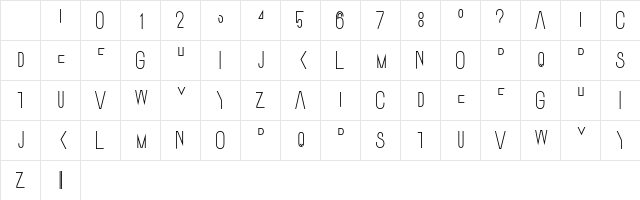
Complete Ostrich Sans Stack Regular glyph index. Displaying only characters natively supported by Ostrich Sans Stack Regular font.
Ostrich Sans Stack is a composed and adaptable typeface that performs quietly and consistently across a wide range of design contexts.
Who designed the Ostrich Sans Stack Regular font?